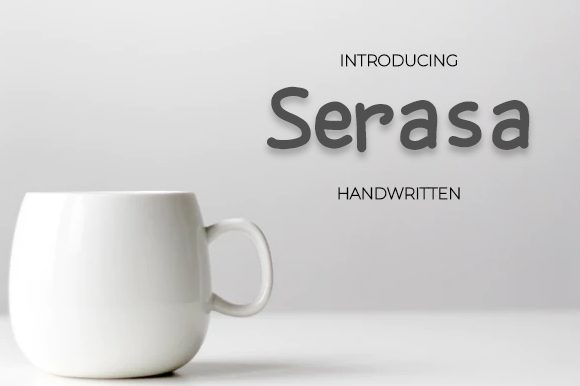
Embark on a captivating typographic journey with Serasa, a font family born from the union of playfulness and sophistication. This charming script font, meticulously crafted by Rizky Creative, is a visual masterpiece designed to add a touch of whimsy and wonder to your creative projects.
With its delightful curves and energetic strokes, Serasa is the perfect choice for injecting personality into any design. Its bold and confident presence makes it ideal for headlines, logos, and posters, while its readability and versatility make it equally suitable for extended blocks of text. Whether you're creating a children's storybook, a vibrant website, or a dynamic marketing campaign, Serasa is the versatile font that will bring your words to life.
Immerse yourself in the boundless creative possibilities that Serasa presents. Imagine your designs adorned with its playful strokes, capturing the attention of your audience and leaving a lasting impression. This font is not just a collection of letters; it's an invitation to let your imagination run wild and create captivating designs that resonate with your audience.
But Serasa is more than just a beautiful font; it's an experience. With its enchanting charm, it has the power to evoke emotions and create connections. Its playful nature invites viewers to engage with your content, while its elegance and sophistication lend an air of credibility and professionalism.
So, whether you're a seasoned designer or just starting your creative journey, embrace the magic of Serasa and unlock the full potential of your designs. Let this remarkable font ignite your creativity and guide you towards creating truly remarkable projects that leave an indelible mark on the hearts and minds of your audience.